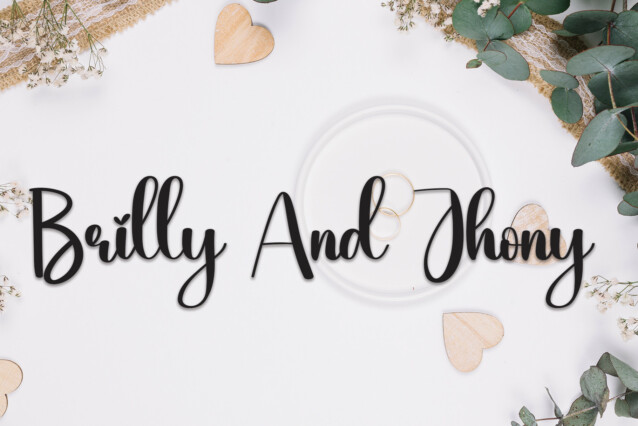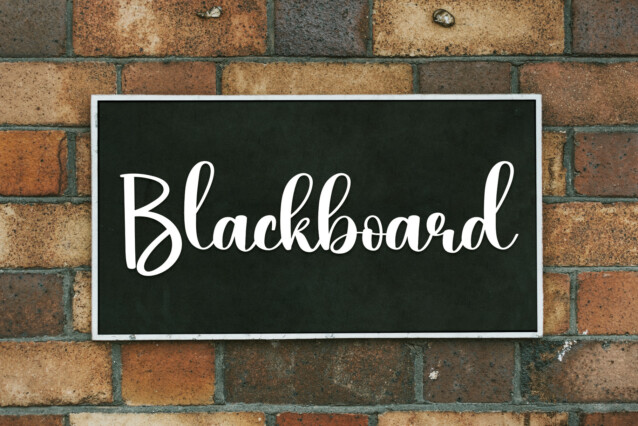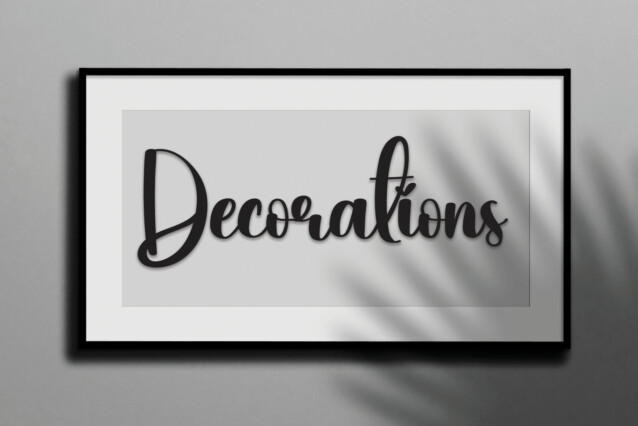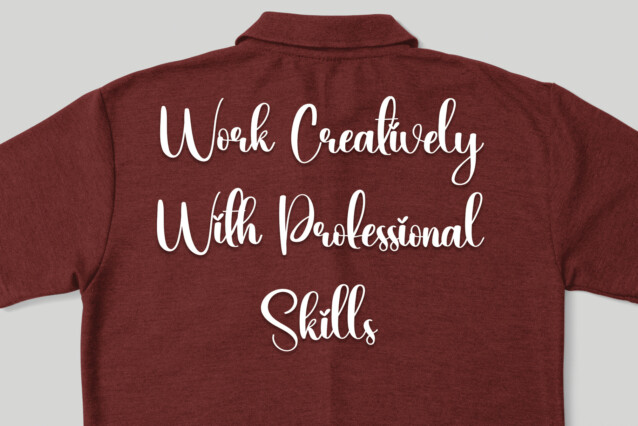
Write Script Font
Write Script Font is a modern and romantic handwritten font. Its latest style letters are perfect for wall displays, wedding invitations, social media post logos advertisements, product packaging, product designs, labels, photography, watermarks, invitations, stationery, and any project that requires a handwritten taste.